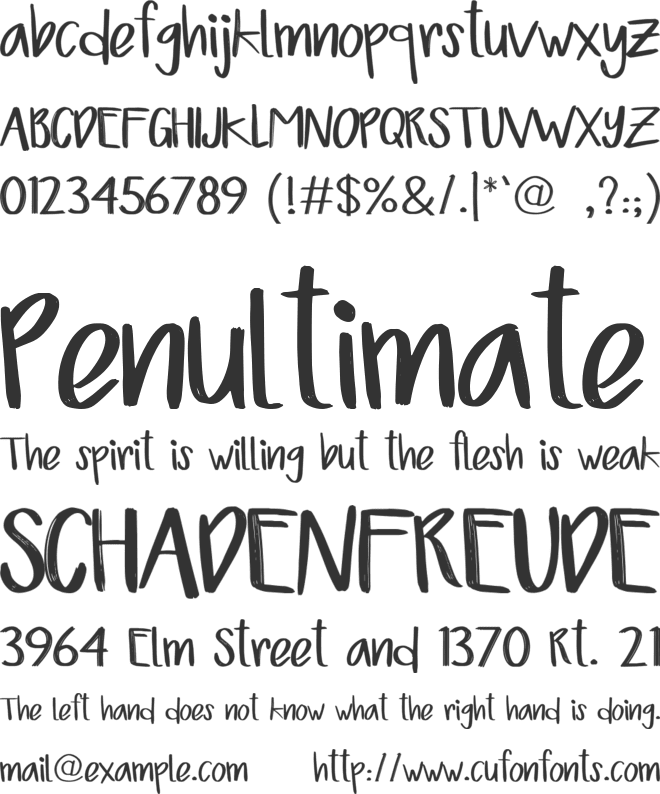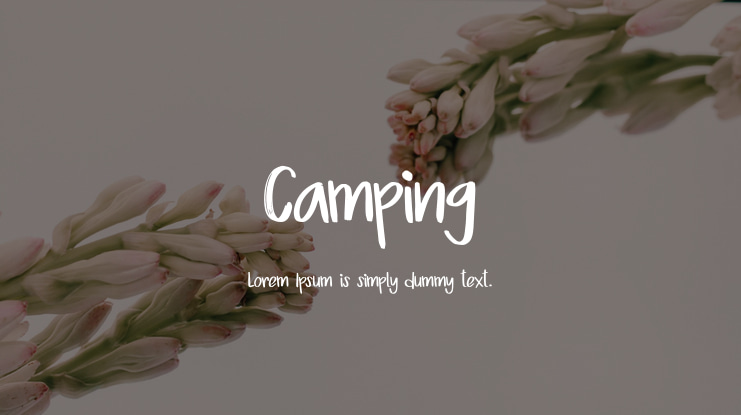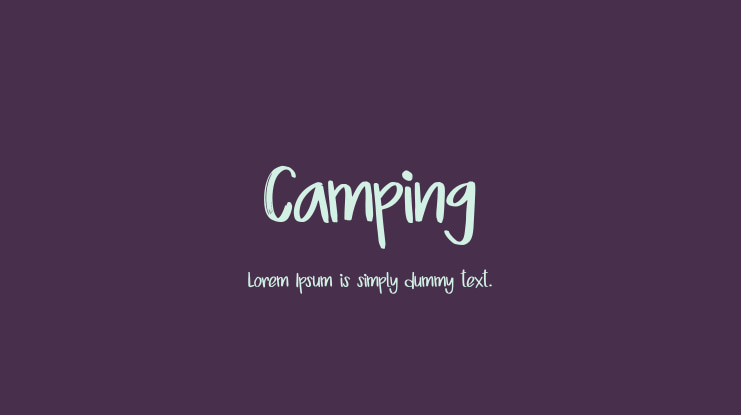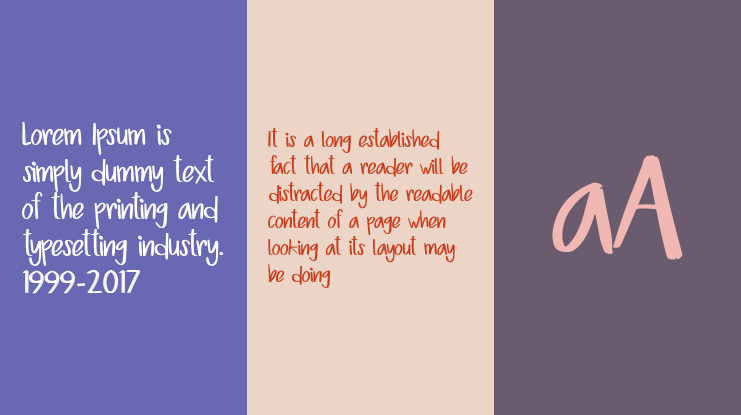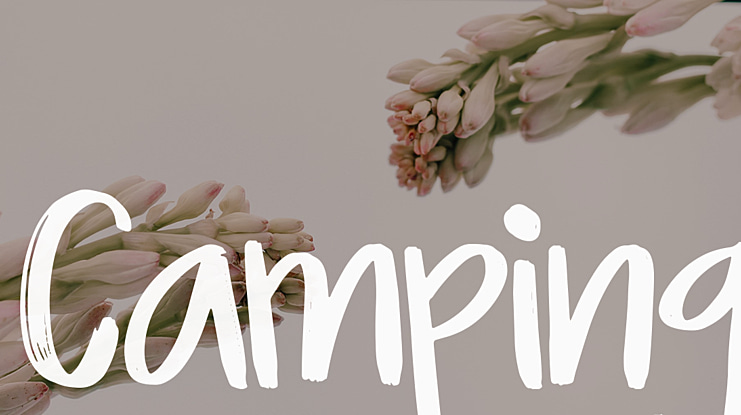
Camping Font
Camping is a simple and natural brushed handwritten font, that can be used for all chalkboard quotes or teaching material! Its authentic look and feel will add a personal and realistic feel to your designs.